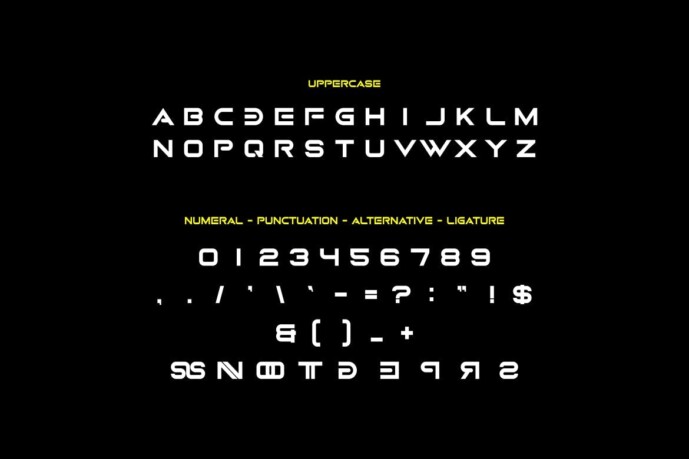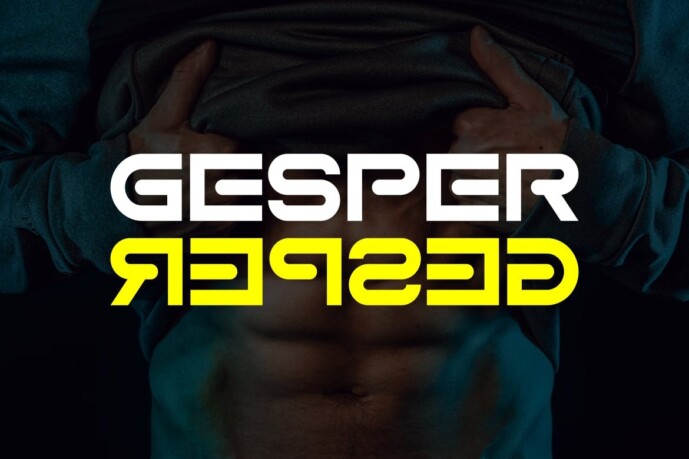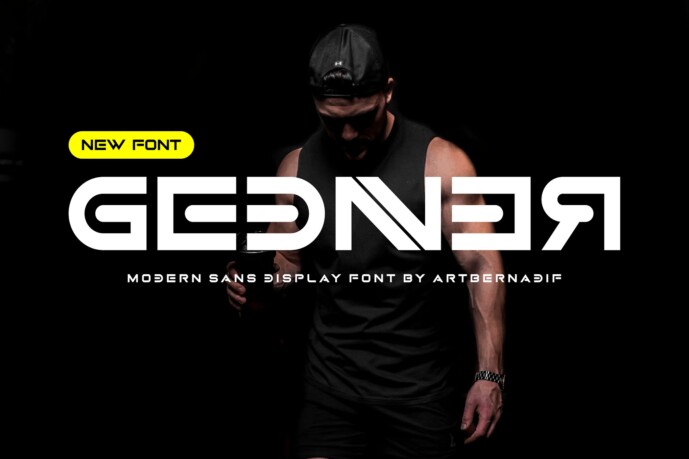
Gednner Font
Gednner Font Modern Font is a bold and authentic display font. The font is suitable for all branding projects such as Logo, t-shirt printing, esports, etc. exceptional in a wide range of contexts.